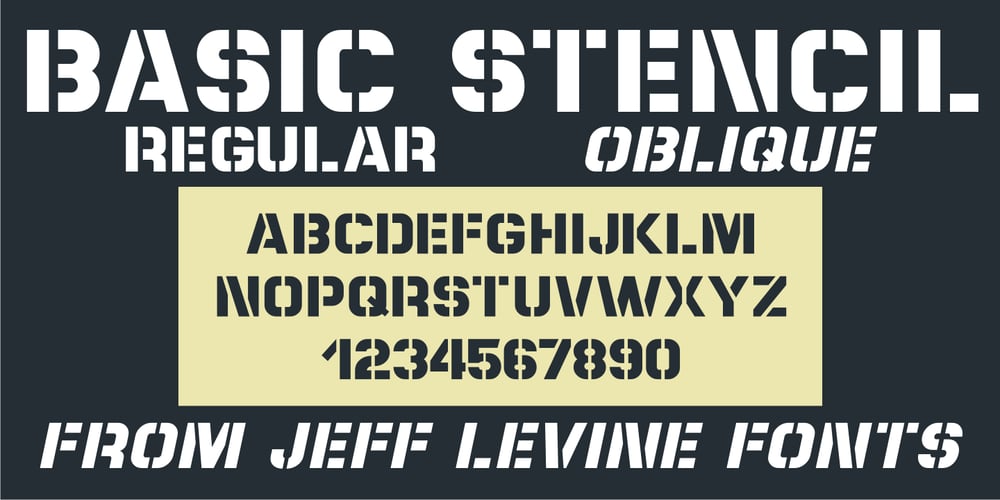
Basic Stencil JNL
Basic Stencil JNL font
Basic Stencil JNL Font Family was designed by Jeff Levine and published by Jeff Levine. Basic Stencil JNL contains 2 styles and family package options. Basic Stencil JNL was inspired by a lettering stencil sold by Dymo around 1968 that featured a sans serif design with rounded corners and an overall square look to the characters. This bold stencil design is available in both regular and oblique versions.